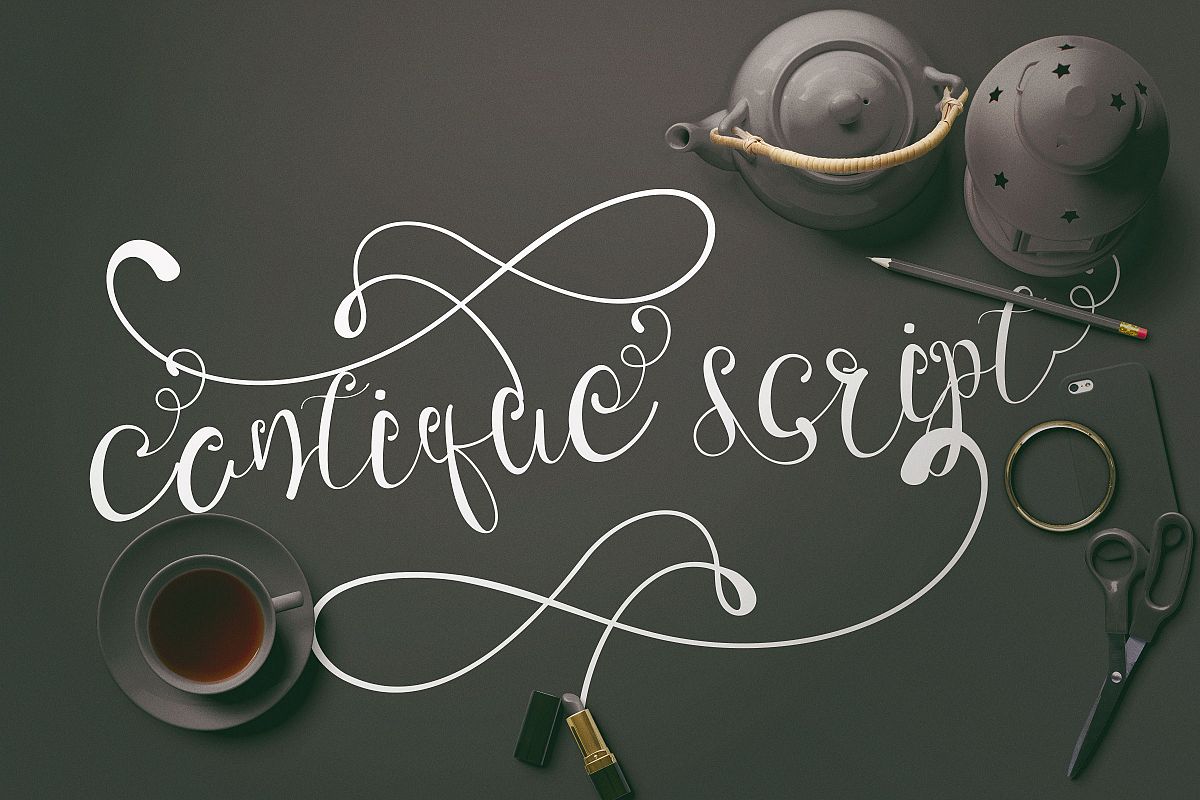
Cantique Script Calligraphy
As a stylish calligraphy typeface Cantique made and cooked carefully to got a sleeks combination between cores glyph and swashs (initial & terminal). Cantique comes with some opentype features such:
Standard ligature
Discretionery ligatures
Stylistic alternates: a-z
Contextual alternates: a-z
SS01: a-z
SS02: a-z
SS03: a-z
SS04: a-Z
SS05: a-Z
ready to boost your design project like wedding invitation, poster, logo, various prints template, website, graphics project, t-shirt, etc